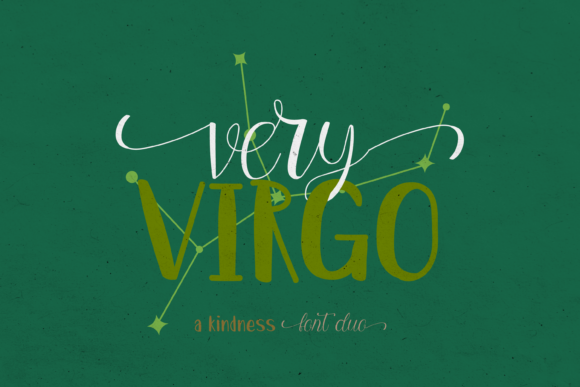
**Very Virgo Duo: Dance with Elegance Through Your Designs**
Unleash the magic of harmonious duality with Very Virgo Duo, an exquisite font collection that combines the grace of a flowing script and the charm of a bold display font. Crafted with meticulous attention to detail by Sweet Vibes, this dynamic duo is designed to ignite your creativity and leave a lasting impression on your audience.
**A Symphony of Style and Finesse**
Step into a world where elegance and boldness intertwine effortlessly. Very Virgo Duo's script font exudes fluidity and grace, while the display font radiates strength and impact. Together, they create a captivating visual symphony that dances across your designs, adding a touch of sophistication and vibrancy that's sure to leave hearts aflutter.
**Perfect Harmony for Design Perfection**
Whether you're a seasoned designer or just starting your creative journey, Very Virgo Duo is your perfect companion. Its harmonious interplay between the script and display fonts opens up a myriad of possibilities, empowering you to craft designs that resonate with your audience. Create eye-catching headlines that command attention, add a touch of whimsy to your invitations, or weave beautiful monograms that exude timeless charm.
**Boundless Creativity Awaits**
With Very Virgo Duo, your imagination knows no limits. It's the perfect choice for adding a splash of personality to your social media posts, creating unique and captivating logos, or crafting stunning wedding stationery that reflects the joy and magic of your special day. Let the fonts inspire you to break free from the ordinary and embrace the extraordinary.
**Embrace the Power of PUA Encoding**
Very Virgo Duo is PUA encoded, offering you the freedom to effortlessly access all the glyphs and swashes with ease. This means you can effortlessly incorporate intricate details, stunning ligatures, and charming alternatives into your designs, adding an extra layer of visual intrigue that will leave your audience mesmerized.
**Your Gateway to Design Excellence**